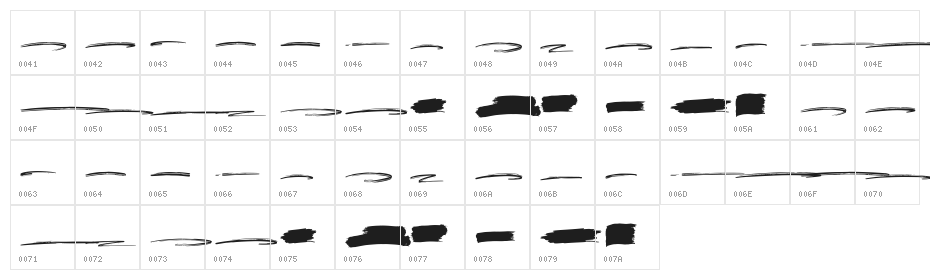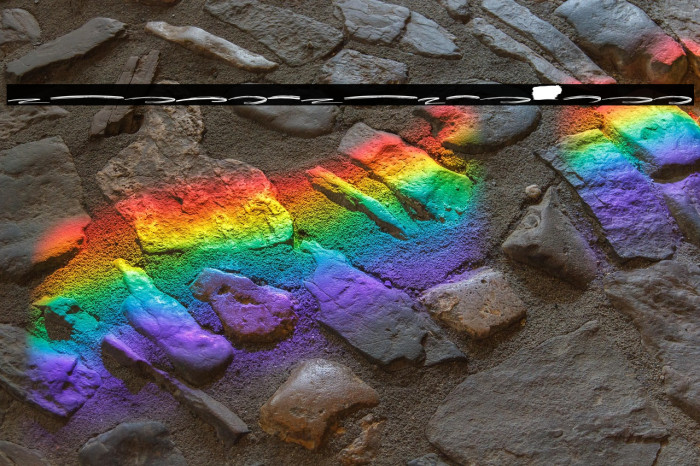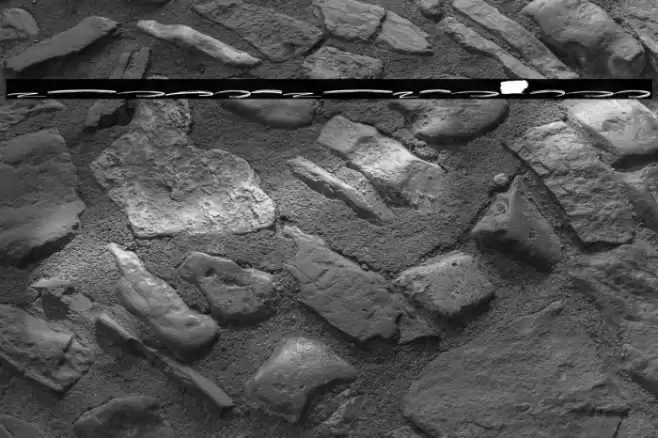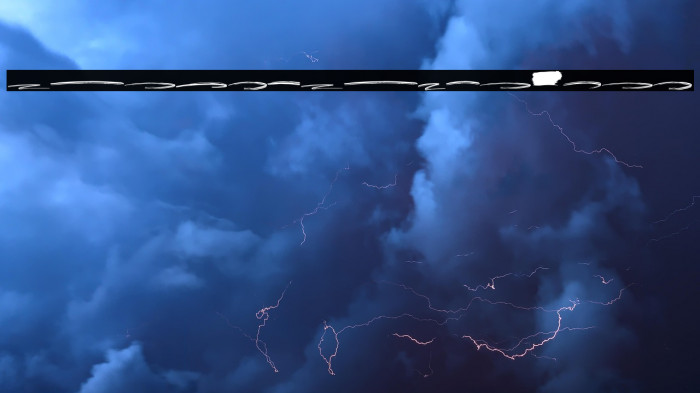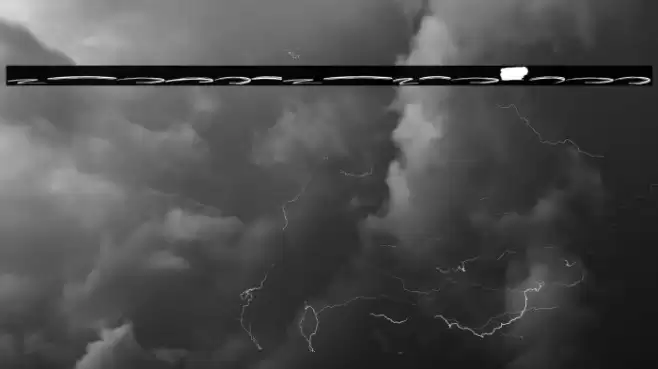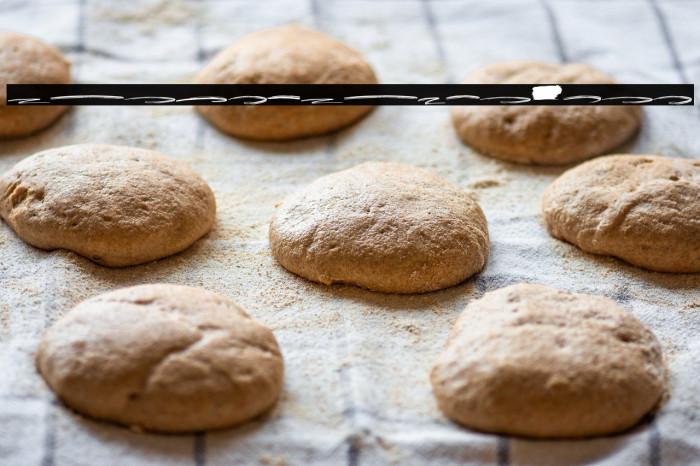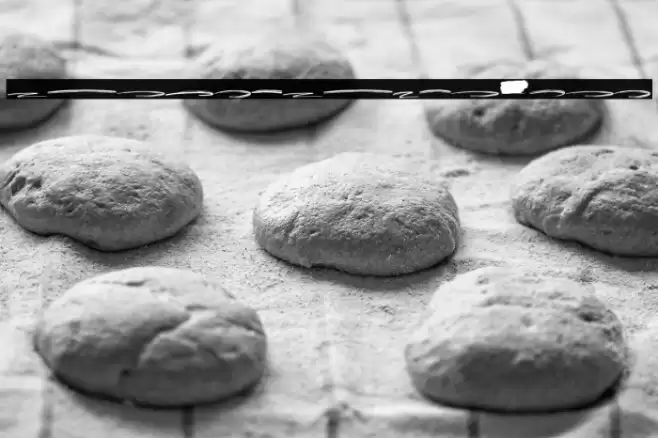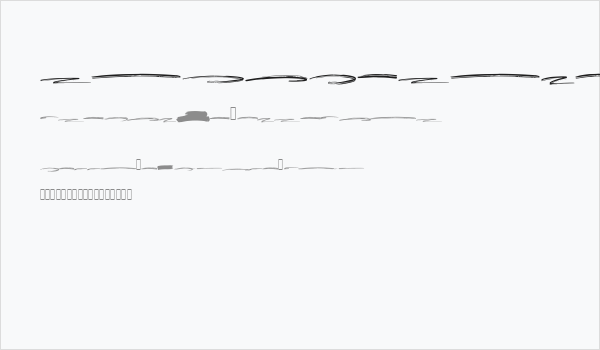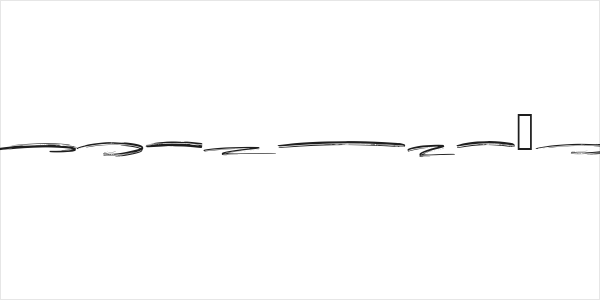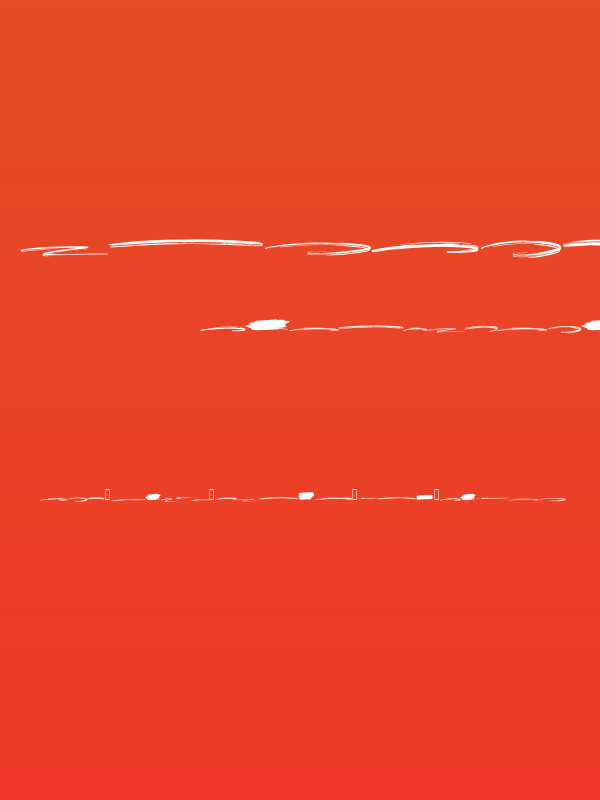
Rostheroid Swash Font
Rostheroid Swash Description
This font features an elegant and flowing design, characterized by its swash elements that add a sense of movement and grace. The strokes are thin and delicate, with a hand-drawn quality that gives it a personal and artistic touch. The letters are connected with sweeping curves, creating a harmonious and fluid appearance. This style is reminiscent of calligraphy, with an emphasis on decorative flourishes that enhance its visual appeal. The overall look is sophisticated and refined, making it suitable for projects that require a touch of elegance and creativity.